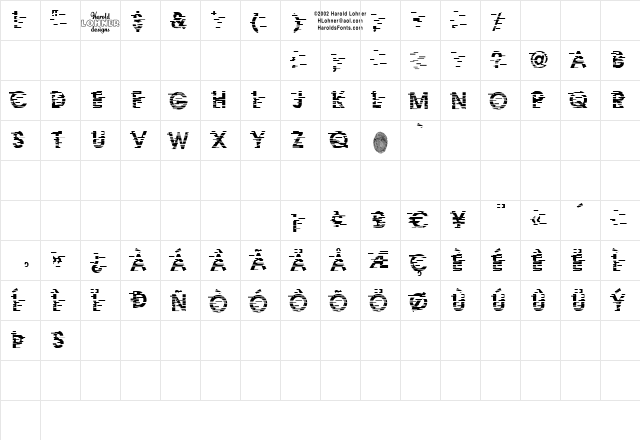
Ixat Demo
Design Context for Ixat Typeface
Ixat is a composed and adaptable typeface that performs quietly and consistently across a wide range of design contexts.